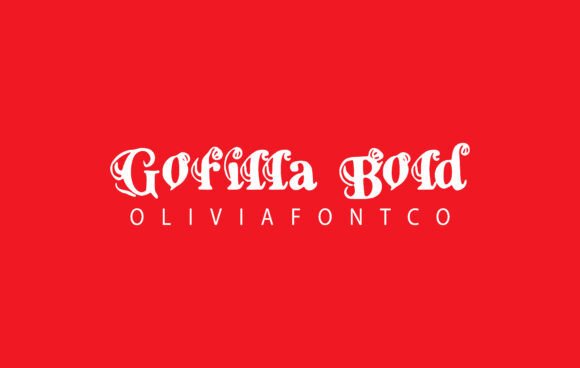
Gorilla Bold Font: The Ultimate Choice for Creative Designs
In the world of typography, fonts play a crucial role in conveying the message and tone of a design. Among the numerous fonts available, Gorilla Bold Font stands out as a unique and authentic handwritten font with a romantic touch. Designed to be a true favorite among designers, this font has the potential to elevate creative ideas to new heights.
Key Features of Gorilla Bold Font
- Authentic Handwritten Style: Gorilla Bold Font boasts an authentic handwritten style that adds a personal touch to any design.
- Romantic Touch: The font’s romantic touch makes it perfect for designs that require a sense of elegance and sophistication.
- Legibility: The font is highly legible, making it suitable for use as both title and body text.
- Versatility: Gorilla Bold Font can be used for a wide range of designs, including magazine headlines, social media graphics, branding, wedding invitations, cards, and more.
Ideal Design Applications for Gorilla Bold Font
Gorilla Bold Font is a versatile font that can be used in various design applications. Here are some of the ideal uses for this font:
- Magazine Headlines: The font’s bold and attention-grabbing style makes it perfect for magazine headlines.
- Social Media Graphics: Gorilla Bold Font can be used to create engaging social media graphics that stand out from the crowd.
- Branding: The font’s unique and authentic style makes it an excellent choice for branding and logo design.
- Wedding Invitations: The font’s romantic touch makes it perfect for wedding invitations and other wedding-related designs.
- Cards and Stationery: Gorilla Bold Font can be used to create beautiful cards and stationery that add a personal touch.
Typography Tips for Using Gorilla Bold Font
To get the most out of Gorilla Bold Font, here are some typography tips to keep in mind:
- Use it as a Title Font: The font’s bold style makes it perfect for use as a title font.
- Pair it with a Sans-Serif Font: Pairing Gorilla Bold Font with a sans-serif font can create a beautiful contrast and add visual interest to your design.
- Experiment with Colors: The font’s versatility allows it to work well with a wide range of colors.
- Use it in Combination with Images: Gorilla Bold Font can be used in combination with images to create stunning visual effects.
Benefits of Using Gorilla Bold Font
Here are some benefits of using Gorilla Bold Font in your designs:
- Unique and Authentic Style: The font’s unique and authentic style sets it apart from other fonts.
- High Legibility: The font’s high legibility makes it easy to read and understand.
- Versatility: Gorilla Bold Font can be used for a wide range of designs and applications.
- Elegance and Sophistication: The font’s romantic touch adds an air of elegance and sophistication to any design.
In conclusion, Gorilla Bold Font is an excellent choice for designers looking for a unique and authentic handwritten font with a romantic touch. Its versatility, legibility, and elegance make it perfect for a wide range of designs and applications. Whether you’re designing a magazine headline, social media graphic, or wedding invitation, Gorilla Bold Font is sure to take your creative ideas to new heights.